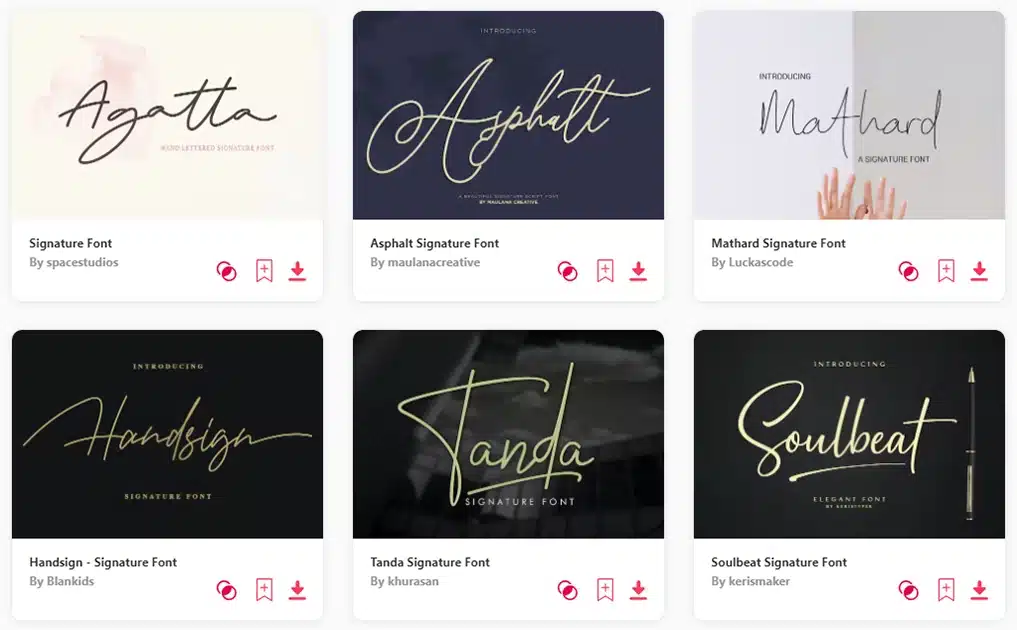
Crafting Excellence: The 9 Best Signature Fonts for Design Mastery
by Amiya Nandy in Fonts on December 1, 2023In the realm of design, the allure of signature fonts has transcended mere aesthetics; it’s become an integral element in crafting a compelling brand experience. The subtle, intimate touch that signature fonts impart plays a pivotal role in resonating with audiences on an emotional level.
Business leaders and marketing experts are increasingly recognizing the significance of these fonts, not just in logos but throughout advertising collateral. The power lies in the emotional connection they forge, contributing to a brand’s overall identity.
Consider iconic brands like Barbie and Disney—just a glance at their signature fonts instantly invokes a sense of association and purpose. This level of brand retention is a testament to the seamless recognition that signature fonts can afford.
Amidst the vast array of signature fonts available online, this post is your guide to the best signature fonts. Here, we present a curated list that goes beyond aesthetics, ensuring that your projects exude a sense of professionalism and authenticity. Join us in exploring the world of signature fonts, where elegance meets recognition, and your brand story unfolds with every stroke.
Signature fonts bring a distinctive touch to your design canvas, much like tattoo number fonts add a unique flair to body art. These fonts, characterized by their individuality and style, hold the potential to elevate your creative projects, adding depth and significance to your work.
What Sets Signature Fonts Apart?
Signature fonts, much like tattoo number fonts, draw inspiration from diverse sources, offering a range from classic to contemporary styles. This variety ensures that there’s a perfect match for every artistic vision. Whether you aim to convey a significant date, a lucky number, or an essential numeral, the world of signature fonts presents a rich array of options to bring your artistic vision to life.
Why Opt for the Best Signature Fonts?
Choosing the best signature fonts for your projects comes with its own set of compelling reasons. Firstly, these fonts command attention with their unique and stylish appearance, allowing your design to make a powerful statement. Signature fonts, like tattoo number fonts, carry a distinct personality, enabling you to showcase your style and preferences authentically.
The versatility of the best signature fonts is a key factor. Whether your taste leans towards a classic or contemporary aesthetic, you’ll find a font that seamlessly aligns with your creative vision. The popularity of these fonts ensures a wide selection of exemplary choices and inspirational designs online, making the selection process effortless.
If you’re in search of signature fonts that marry edginess with chic elegance, look no further. Dive into the world of signature fonts for a design experience that promises to leave a lasting impression.
1. Daisuke – Signature Font
Daisuke, a light and elegant handwritten font, takes center stage in the world of Best Signature Fonts. Brimming with energy, it promises to infuse a distinctive touch into any design project.